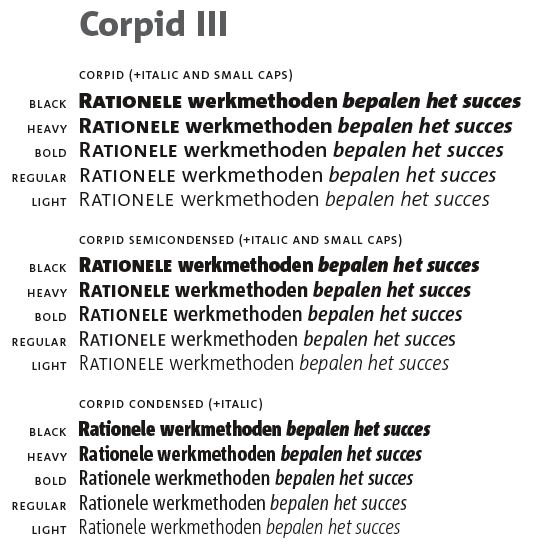
Corpid III (LucasFonts)
LucasFonts introduces LF Corpid III, a versatile type
family in three widths for body text, headlines and signage.
The Corpid family has been around for almost a decade.
With LF Corpid III, LucasFonts presents its most extensive
upgrade to date. Previously available in two widths – Normal
and Condensed – Corpid III has now been equipped with an
intermediate width: LF Corpid SemiCondensed. The three
sub-families come as OpenType fonts in a range of five weights,
from Light to Black. All family members come with small caps.
The new Corpid SemiCondensed has double functionality. It is
a no-frills, compact headline font that offers optimum legibility
in sizes from small to huge. It is also a great space-saving text
typeface for magazines, newsletters or annual reports: economic,
versatile, and provided with several different numeral sets. Greek
and Cyrillic versions are available for all weights of Corpid III.
Eine organische Alternative zur Thesis, oder auch zu Kievit & Co.
Für mich: typisch de Groot... Was nichts schlechtes heißt, sondern das was ich von ihm erwarte.
Ein Schriftsystem, sauber durchkonzipiert und ausgearbeitet, leider hat es nur "einmal sex", da sich der Charakter von Light nach Black in keiner Weise verändert – für eine Schrift für Magazine will ich zumindest sowas wie eine Black Display sehen, oder eine andere Möglichkeit, Titel visuell interessanter zu gestalten als den Mengentext, ohne dass ich fast gezwungen werde andere Schriften dazu zu nehmen.
Eine Rückkehr zu handgezeichneten Gewichten ist ja eher nicht zu erwarten.
Und: Skaliert sie linear oder täuscht mich das? Was ist mit der Interpolationstheorie passiert?